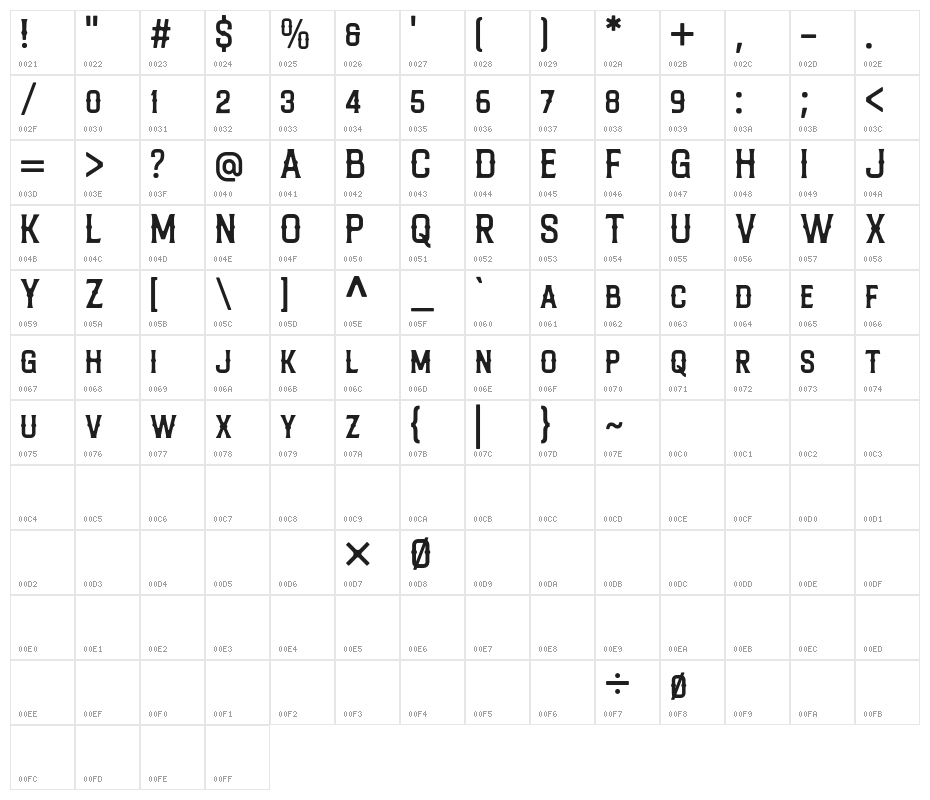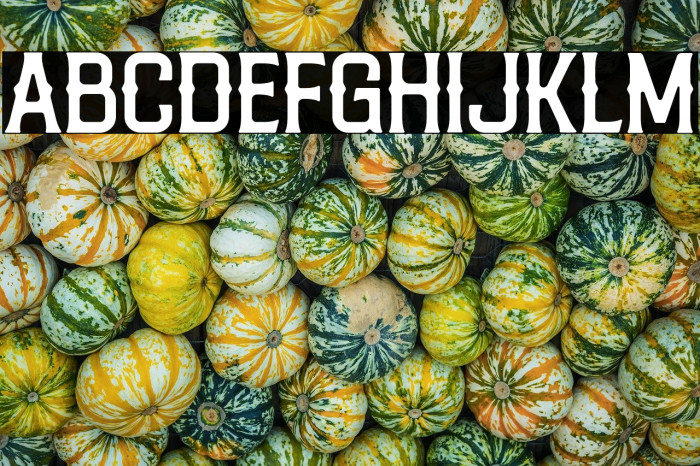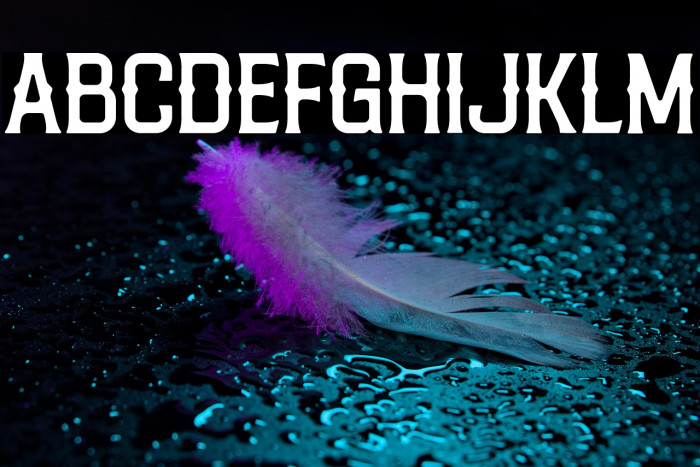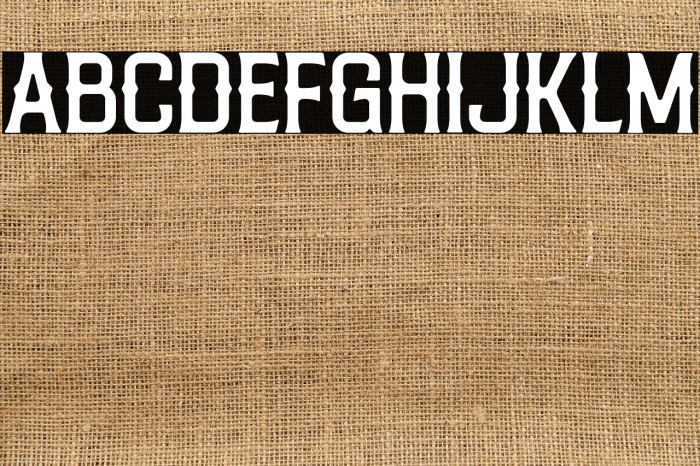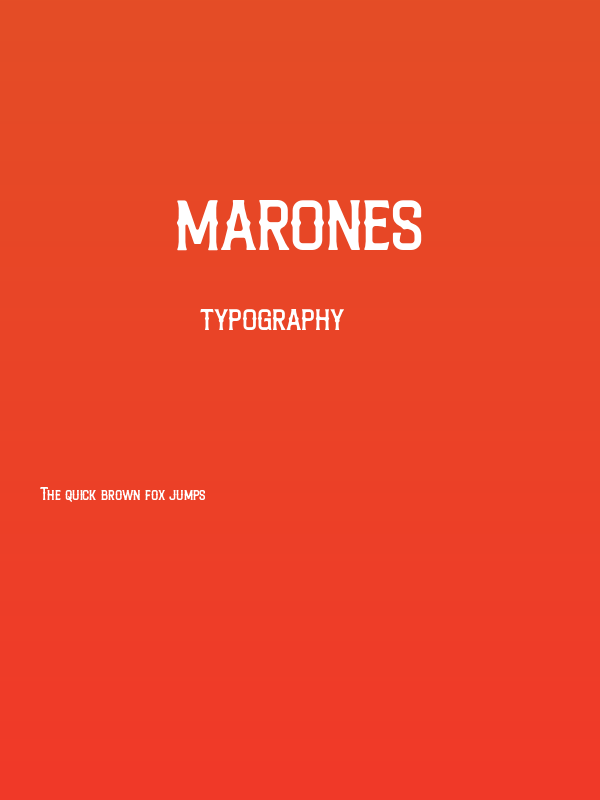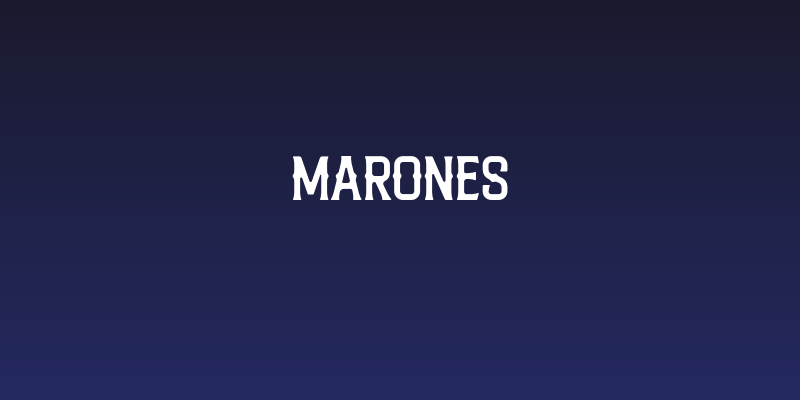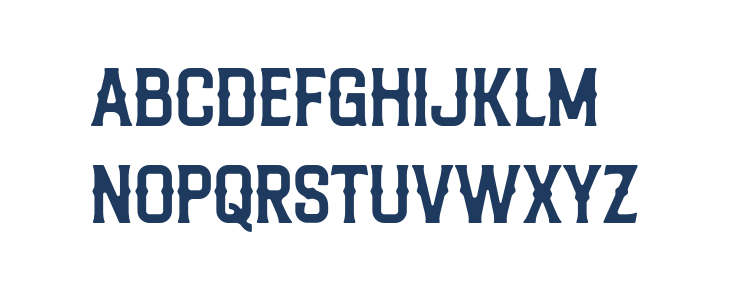
Marones Font
Marones Description
This font features a bold and robust design with a strong presence. The characters are crafted with a distinct slab serif style, giving them a sturdy and impactful look. The uppercase letters are uniform in height, while the lowercase letters maintain a consistent baseline, enhancing readability. The numerals are equally bold, ensuring they stand out in any context. Special characters are designed with the same attention to detail, making them suitable for various applications. The overall style is modern yet retains a classic touch, making it versatile for different design needs.